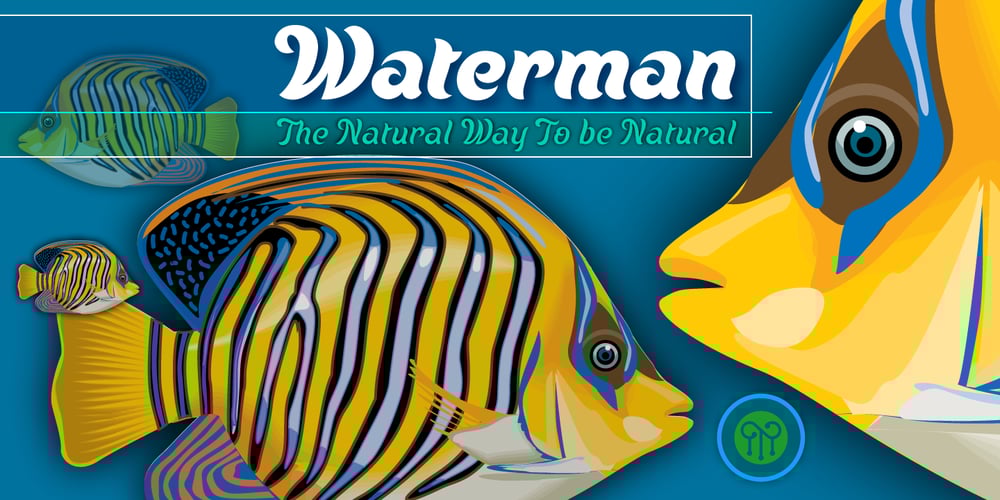
Waterman Font Family was designed by John Moore and published by John Moore Type Foundry. Waterman contains 2 styles and family package options. Waterman is a display font, its form is based on the figure of a fluid, creating a texture of undulating forms, rhythmic and free to make reading a stream wave experience. Waterman comes in Regular and Bold. The letter shape was developed from the design of the letter “a” and “l” lower case. The curve model is related on a stylized form of a fluid wave.